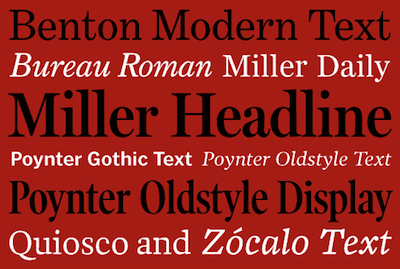
Font Bureau's Readability Series Goes Retail
The Font Bureau announced that it's much coveted Readability Series of typefaces will be joining its retail collection.
Previously, the fonts in the Readbility Series were sold exclusively to select Font Bureau customers like Sports Illustrated, the Poynter Institute, and the Boston Globe, among many others.
The Readability Series was created with changing technologies in mind. The Font Bureau's clients needed fonts that adapted to new trends and methods for printing on paper.
The company says that the retail versions of these fonts "are not substantially changed" from the fonts that were licensed to its elite clients. However, "character sets may vary between families; but we’ve taken advantage of the OpenType format to merge small capitals and alternate figure styles and improve access to stylistic alternates, where applicable."
The faces in the Readability Series are:
- Bureau Roman
- Miller Daily
- Miller Headline
- Poynter Gothic Text
- Poynter Oldstyle Display
- Poynter Oldstyle Text
- Quiosco
- Zócalo Text
Benton Modern Text, Miller Headline, and Poynter Oldstyle Text are also available as Webtype, which is hosted Web service co-founded by the Font Bureau.